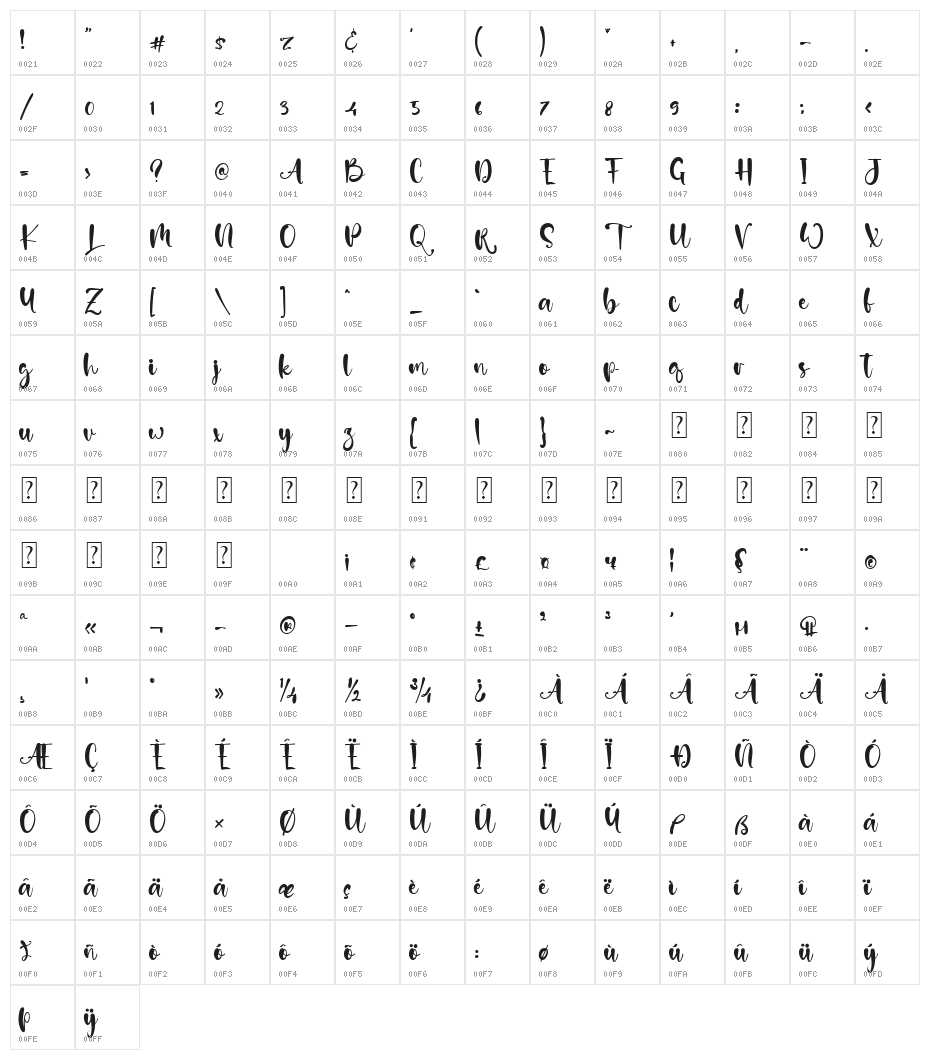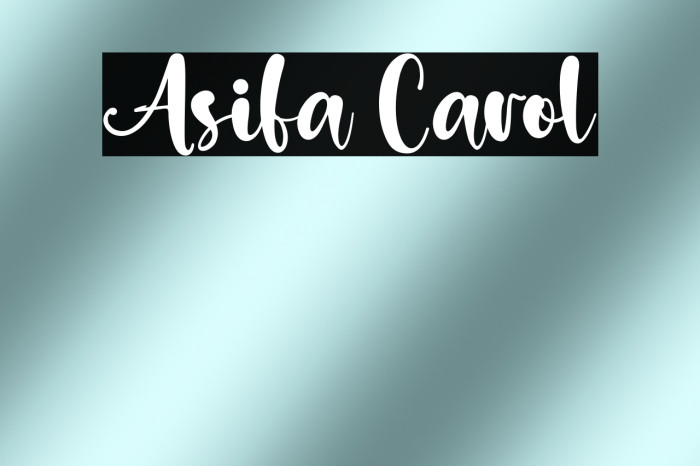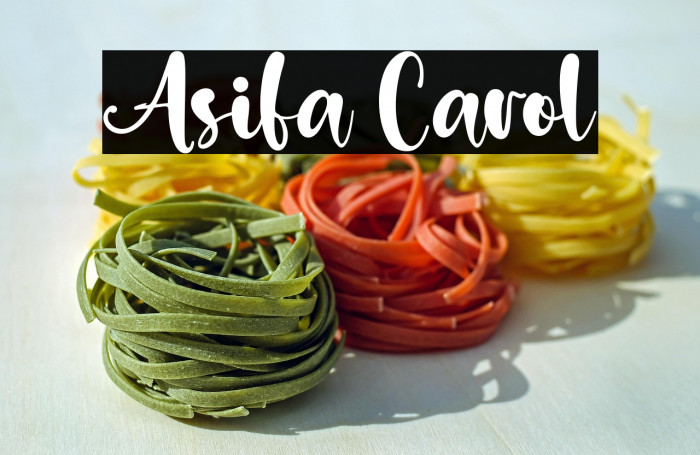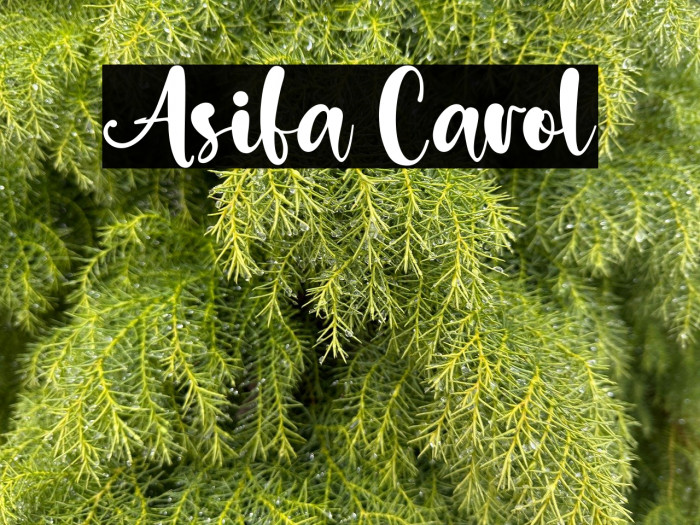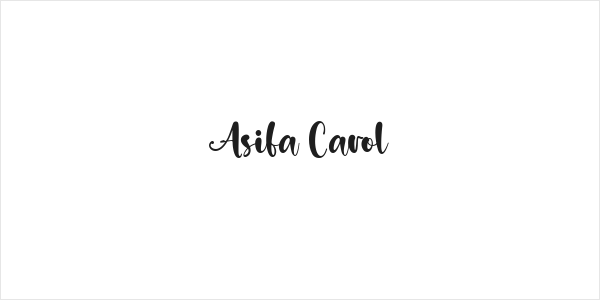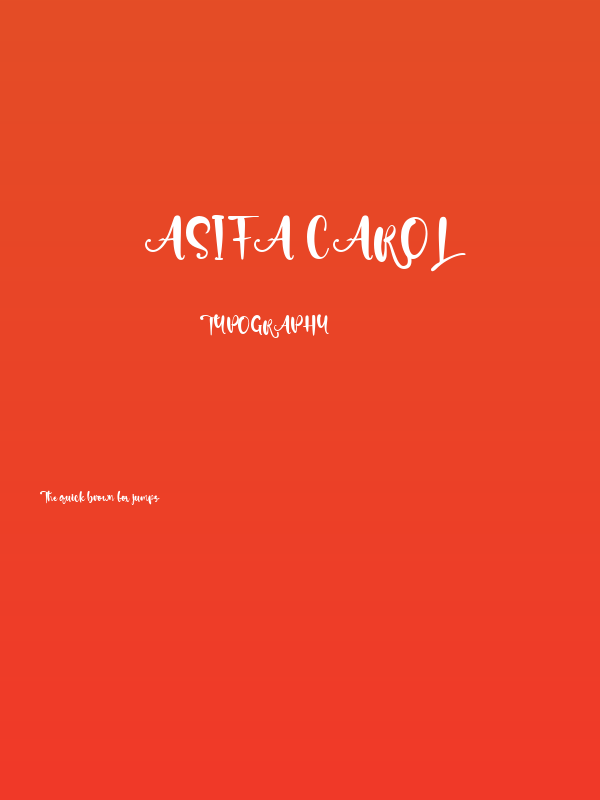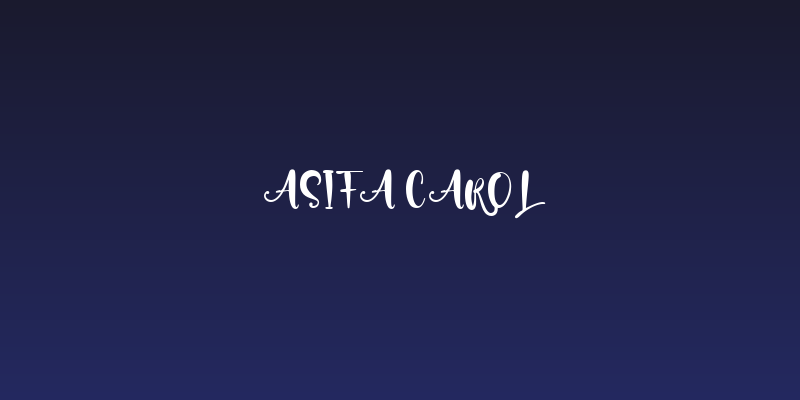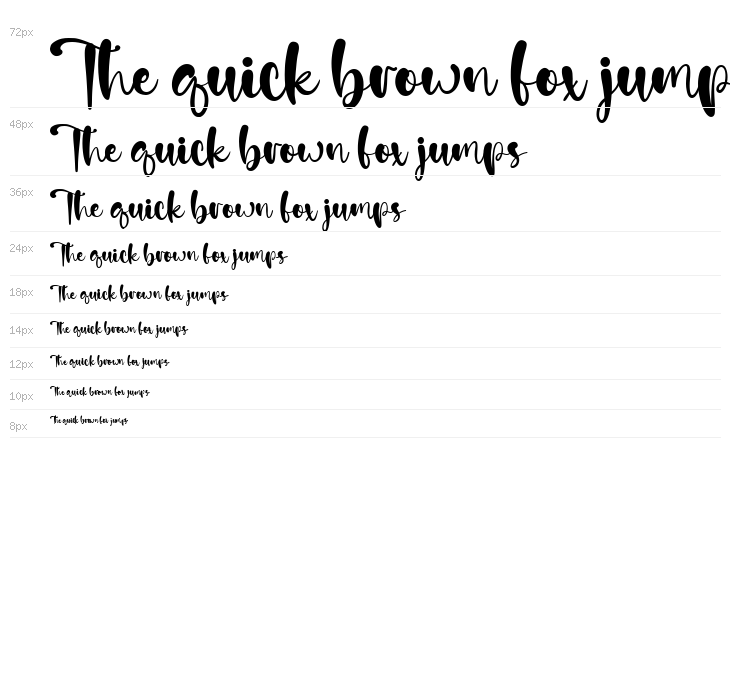
Asifa Carol Font
Asifa Carol Description
This font features a bold and expressive script style, characterized by its flowing, cursive letterforms. The uppercase letters are particularly ornate, with sweeping curves and loops that give a sense of movement and elegance. The lowercase letters maintain this fluidity, with a slightly more compact form that ensures readability. The numbers and special characters are consistent with the overall style, adding a playful yet sophisticated touch. The font's thick strokes and high contrast make it stand out, ideal for creating eye-catching designs.
| Proposed Projects | Ideal for wedding invitations, branding projects, logo design, and decorative headings. |